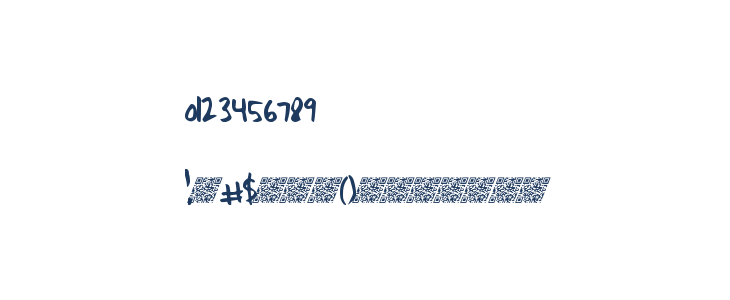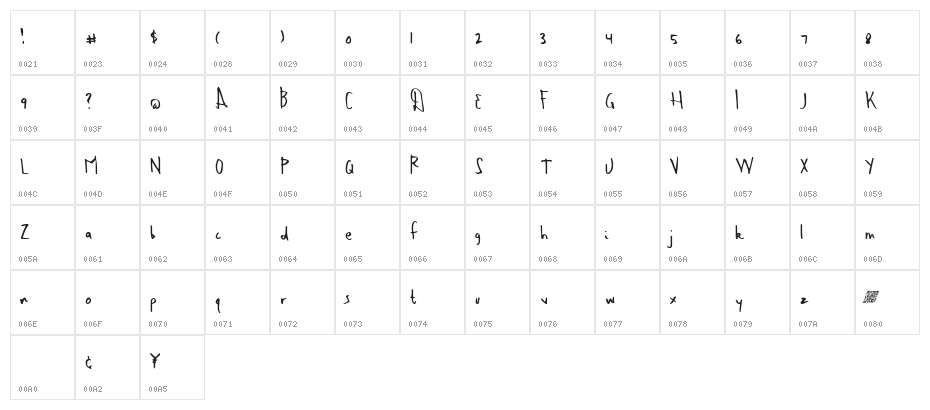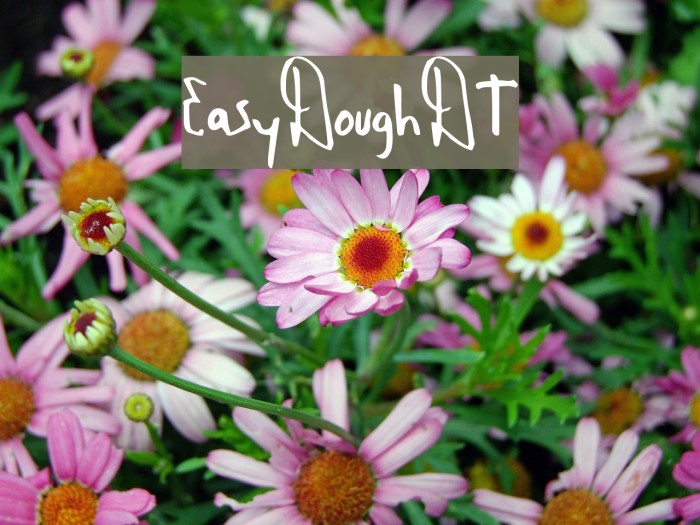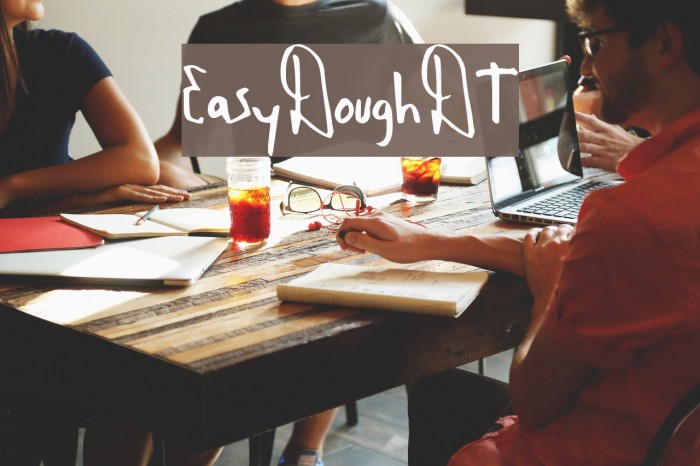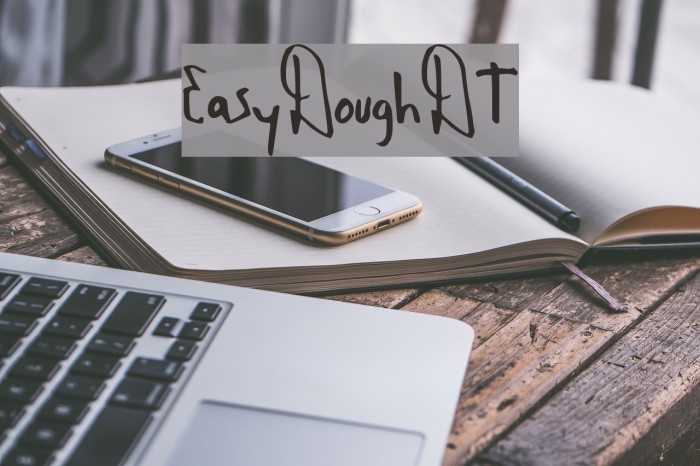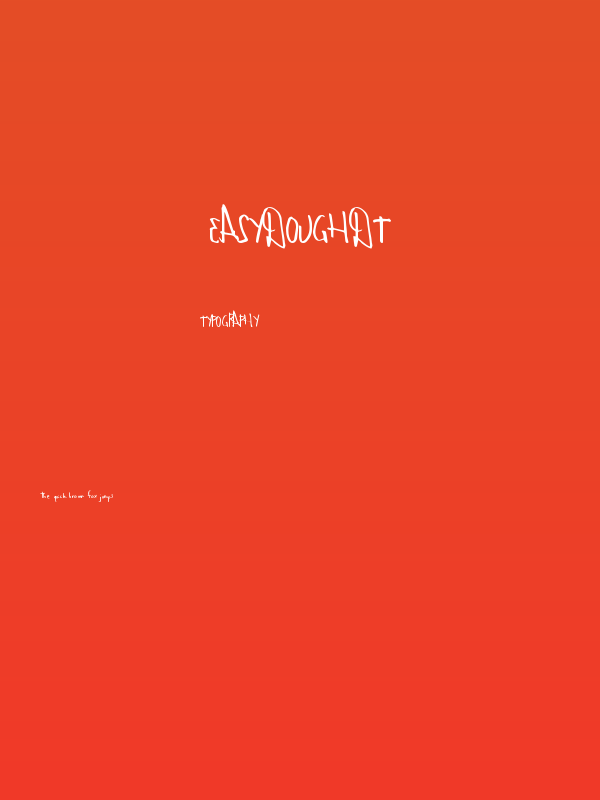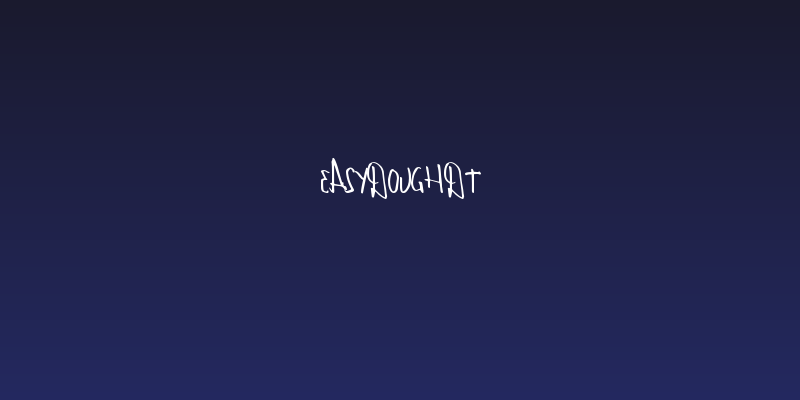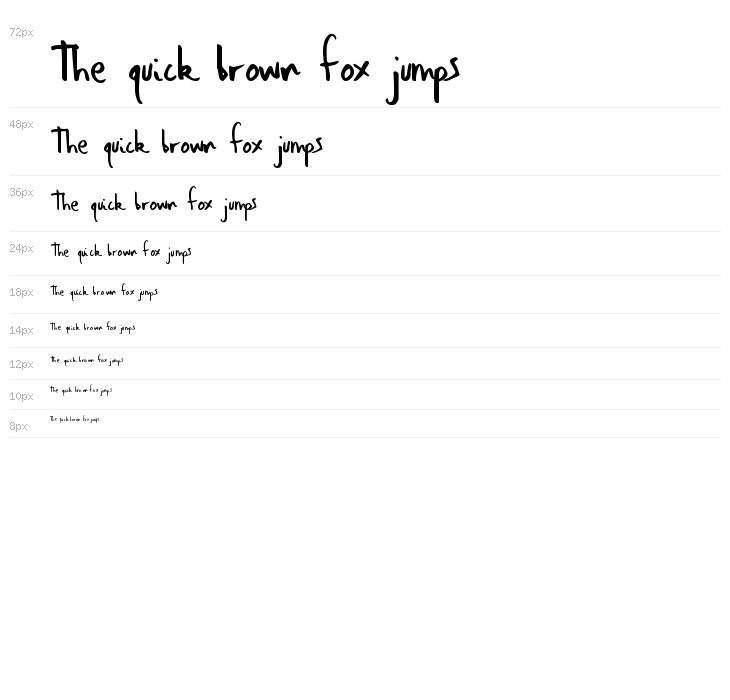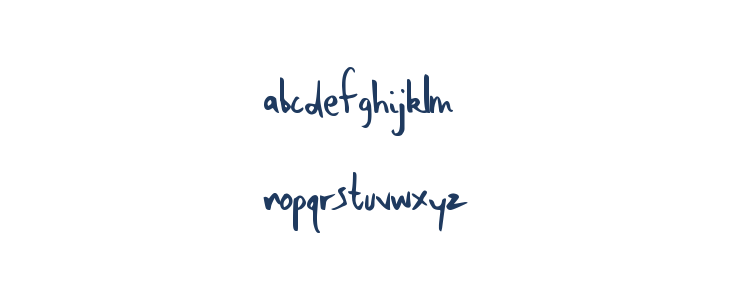
EasyDoughDT Font
EasyDoughDT Description
This font features a playful and casual handwritten style, characterized by its irregular strokes and informal appearance. The uppercase letters are bold and slightly uneven, giving a sense of spontaneity and creativity. The lowercase letters maintain a consistent flow, with some letters having unique loops and curves that add to the font's charm. Numbers are clear and legible, matching the overall informal style. Special characters are included, maintaining the same playful aesthetic. This font is perfect for projects that require a personal touch or a relaxed vibe.
| Use Case | Logos, Headlines, Informal Text |
| Proposed Projects | Ideal for greeting cards, personal blogs, children's books, and creative branding. |